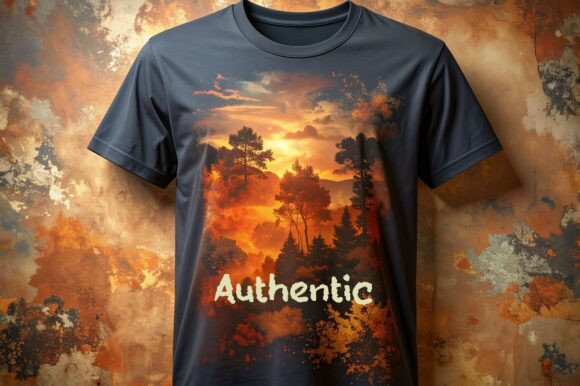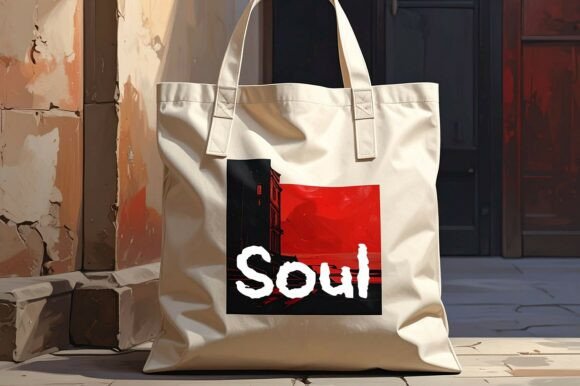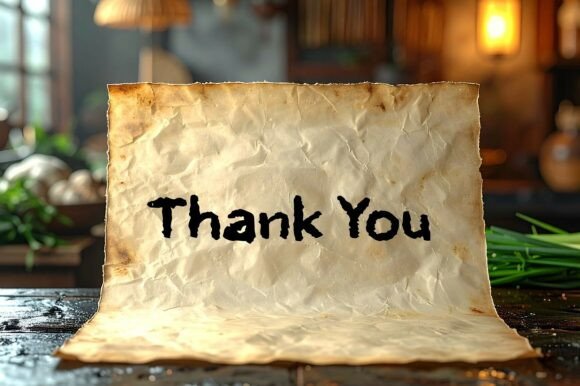
Introducing Beef Teriyaki Font: Savor the Flavor of Authenticity
In the world of typography, few fonts manage to capture the essence of a culinary experience as effectively as Beef Teriyaki Font. This hearty and flavorful display font is designed to bring a bold, appetizing energy to your designs, making it a perfect fit for culinary branding, restaurant menus, food packaging, cooking show titles, and any project that aims to convey deliciousness and comfort.
The Inspiration Behind Beef Teriyaki Font
Beef Teriyaki Font draws inspiration from the rich, savory qualities of a well-cooked meal. Its thick, brush-stroke inspired letters and slightly rustic texture evoke the feeling of a perfectly grilled steak or a steaming plate of noodles. The font’s design is a masterful blend of modern style and traditional technique, making it a versatile choice for designers and crafters looking to add a touch of authenticity to their work.
Key Features of Beef Teriyaki Font
- Bold and Appetizing Energy: Beef Teriyaki Font is designed to grab attention and stimulate the appetite. Its bold, chunky letters are perfect for headlines, titles, and promotional materials.
- Brush-Stroke Inspired Letters: The font’s brush-stroke inspired letters add a touch of handcrafted charm to your designs, making them feel more approachable and authentic.
- Slightly Rustic Texture: The font’s slightly rustic texture gives it a warm, organic feel that’s perfect for culinary branding and food-related projects.
- Versatile and Highly Legible: Despite its bold style, Beef Teriyaki Font is highly legible, making it suitable for use in a wide range of applications, from signage to digital media.
Perfect for Culinary Branding and Design
Beef Teriyaki Font is a perfect fit for culinary branding, restaurant menus, food packaging, and cooking show titles. Its robust and inviting presence adds a mouth-watering appeal and an authentic, gourmet touch to your creative work. Whether you’re designing a logo for a new restaurant, creating a menu for a food truck, or developing a brand identity for a gourmet food company, Beef Teriyaki Font is the perfect choice.
Tips for Using Beef Teriyaki Font
- Pair with Neutral Backgrounds: Beef Teriyaki Font works best when paired with neutral backgrounds that allow the font’s bold style to take center stage.
- Experiment with Colors: Don’t be afraid to experiment with different colors and textures to add depth and visual interest to your designs.
- Use for Headlines and Titles: Beef Teriyaki Font is perfect for headlines and titles, but it can also be used for body copy and other design elements.
Beef Teriyaki Font is a unique and flavorful display font that’s sure to add a touch of authenticity and gourmet charm to your designs. Its bold, appetizing energy and slightly rustic texture make it a perfect fit for culinary branding, restaurant menus, food packaging, cooking show titles, and any project that aims to convey deliciousness and comfort. So why settle for a bland, generic font when you can savor the flavor of Beef Teriyaki Font? Download it today and take your designs to the next level!
Key Benefits of Beef Teriyaki Font
- Adds a Touch of Authenticity: Beef Teriyaki Font adds a touch of authenticity and gourmet charm to your designs.
- Perfect for Culinary Branding: The font is perfect for culinary branding, restaurant menus, food packaging, and cooking show titles.
- Highly Legible: Despite its bold style, Beef Teriyaki Font is highly legible and versatile.
- Makes Your Designs Stand Out: The font’s unique style and bold energy make your designs stand out and grab attention.